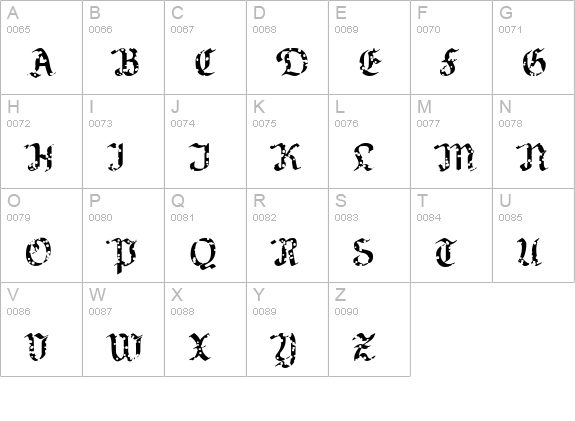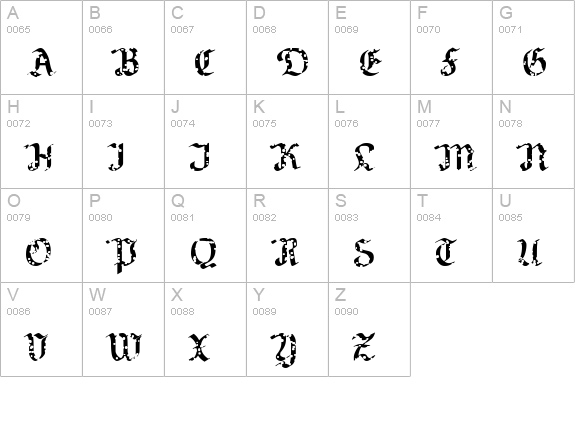
NeuAltischWormEaten Font Details
NeuAltischWormEaten font is a unique and intriguing typeface that exudes a sense of vintage charm and character. Its distinctive design features intricate details and a worn, weathered look that gives it a rustic and aged appearance. This font is perfect for adding a touch of nostalgia and personality to your projects, whether you're creating posters, logos, or invitations. Best of all, NeuAltischWormEaten font is available for free download at FontsMarket.com. With its freely accessible nature, you can easily incorporate this one-of-a-kind font into your designs without any cost or hassle. Don't miss out on the opportunity to enhance your creative endeavors with the captivating NeuAltischWormEaten font today!